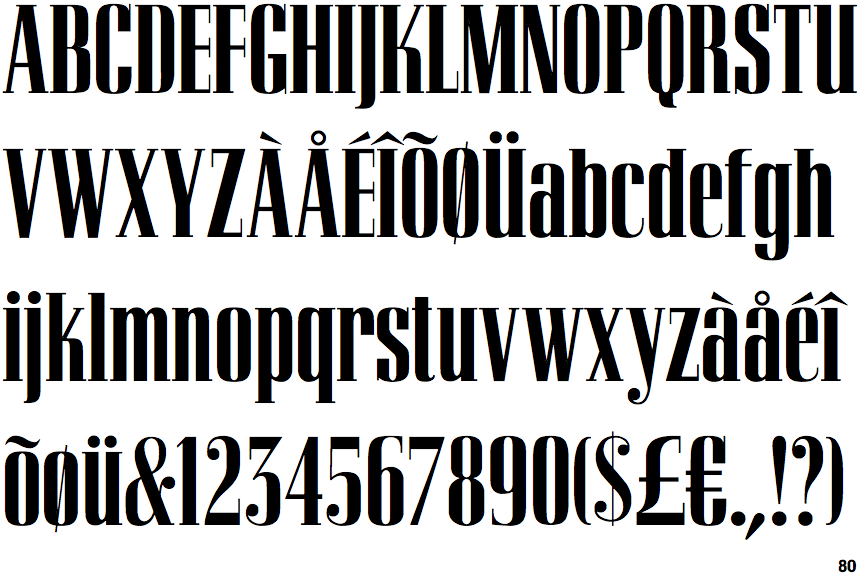
Skyline Bold Condensed
One of the Tallest serif fonts for narrow spaces.
Designers: Imre Reiner and Jane Patterson Year: 1929-34, 1992 Publisher: Font Bureau Examples: Traveler magazine |